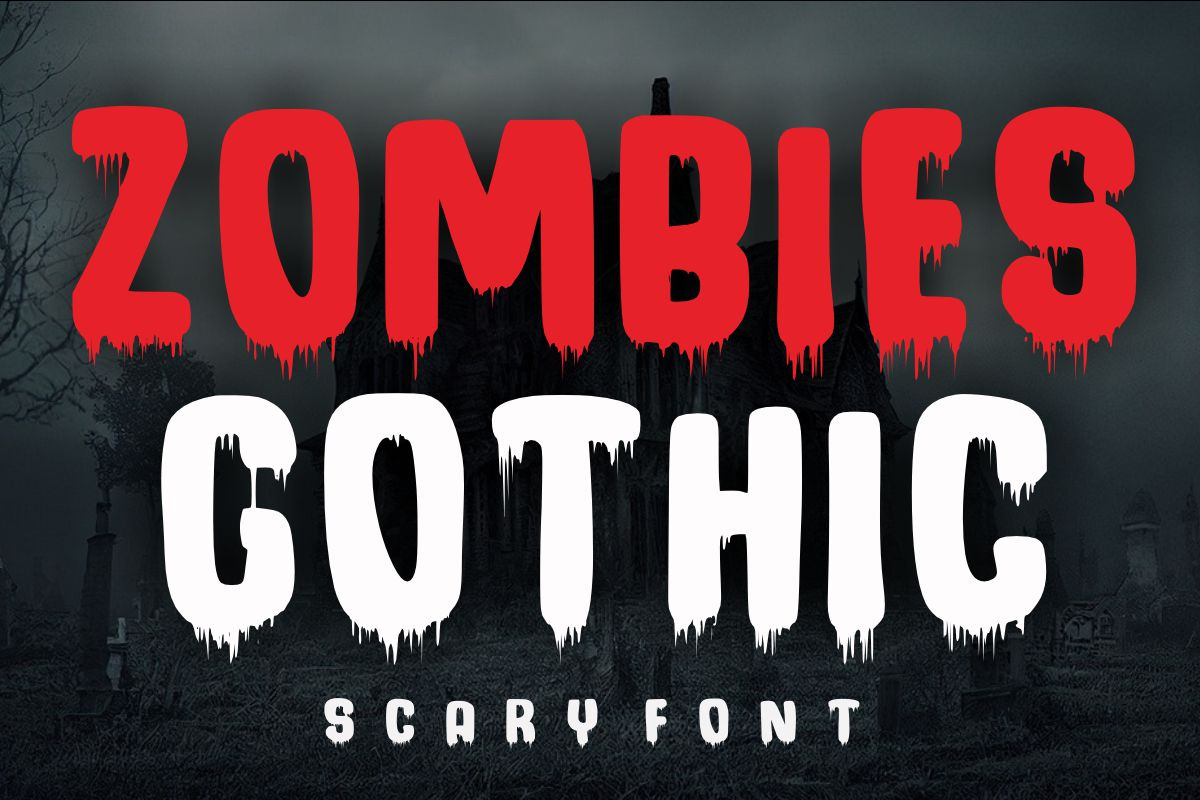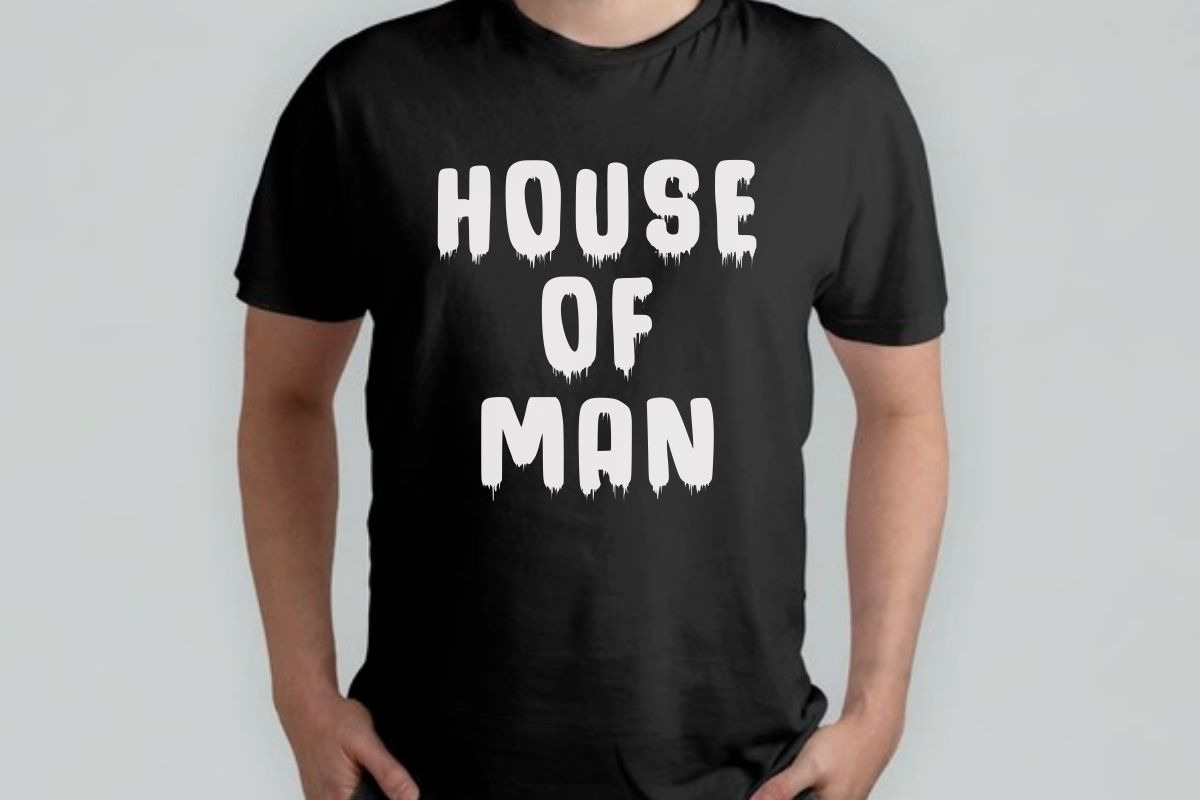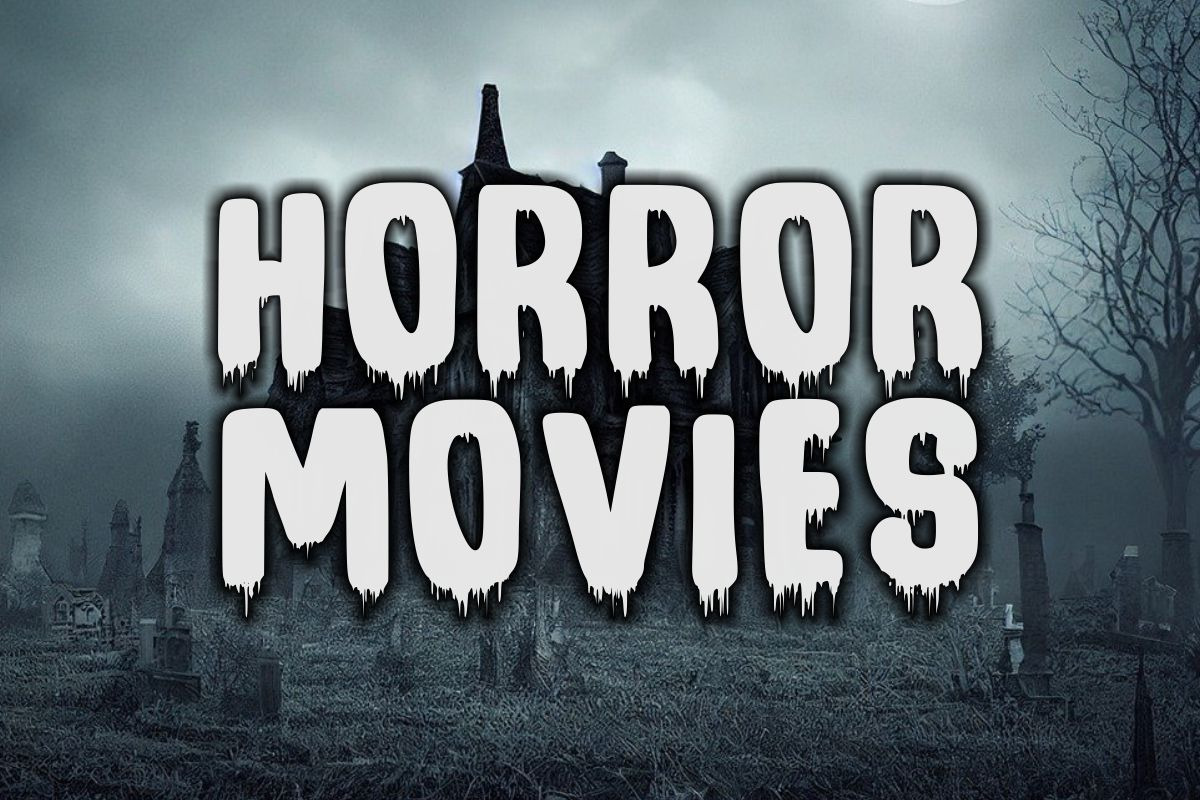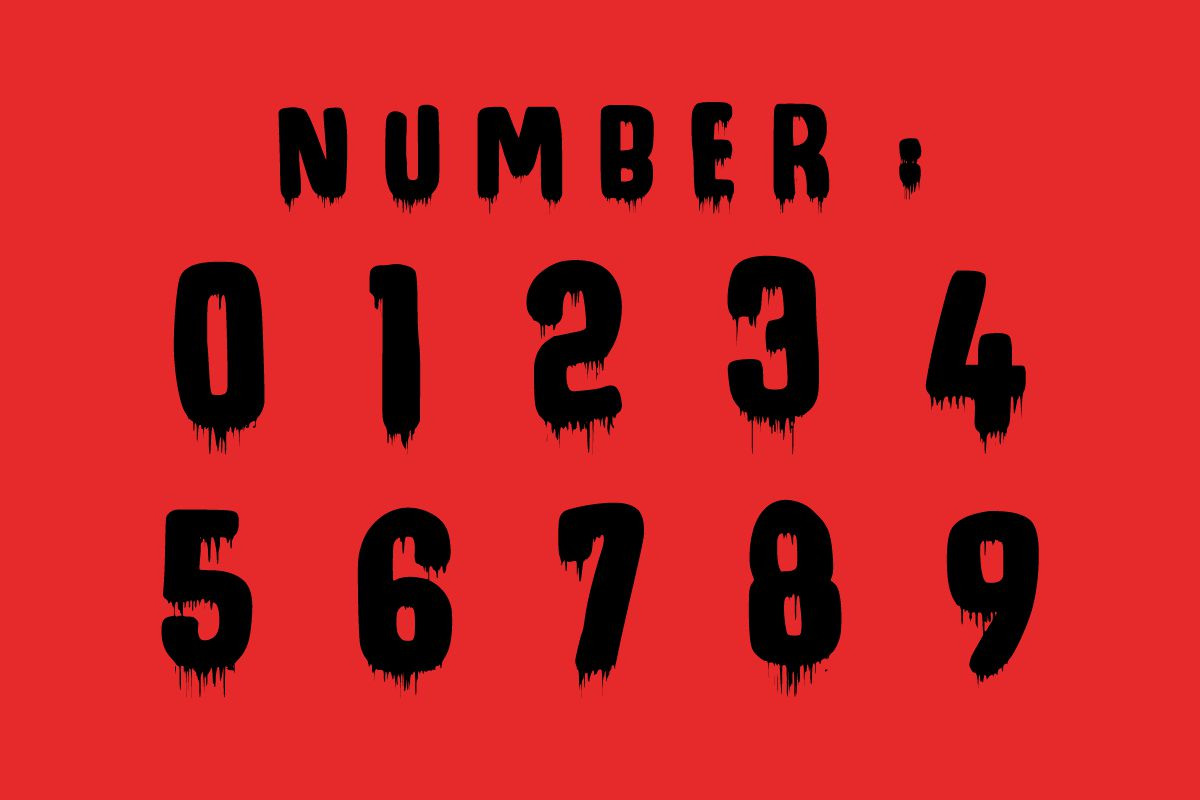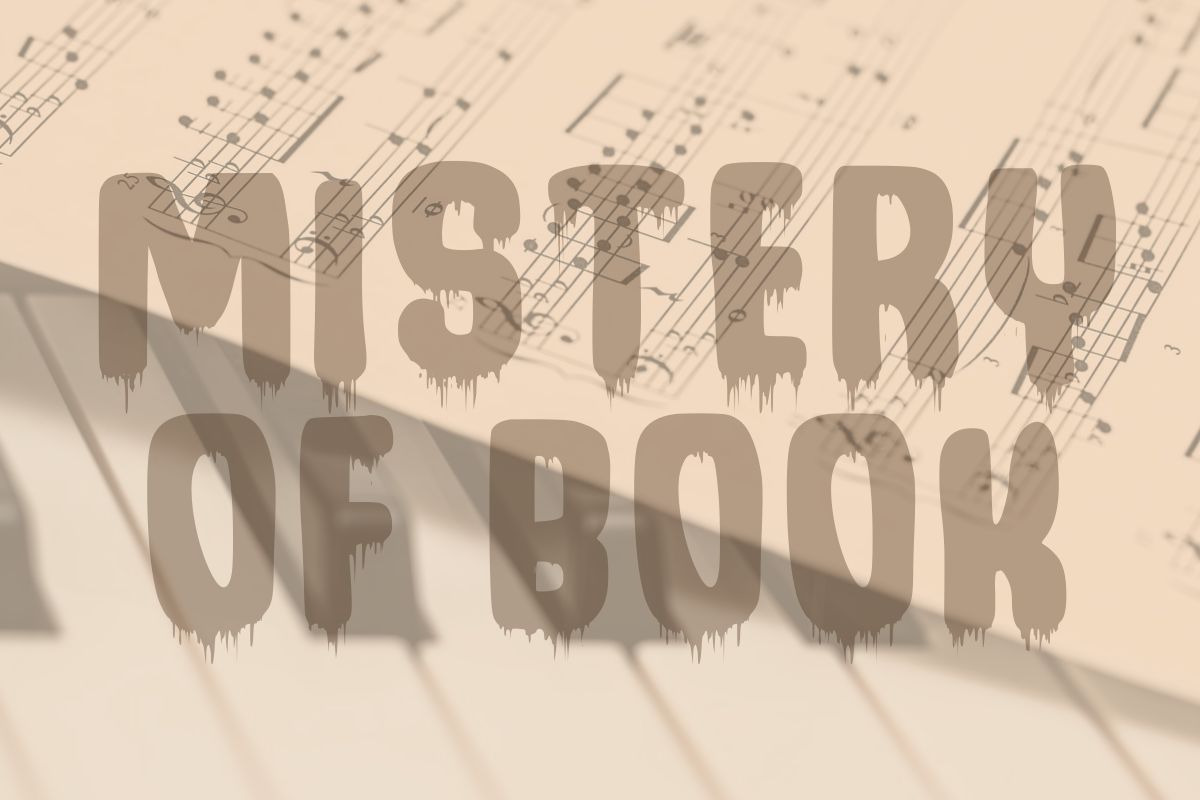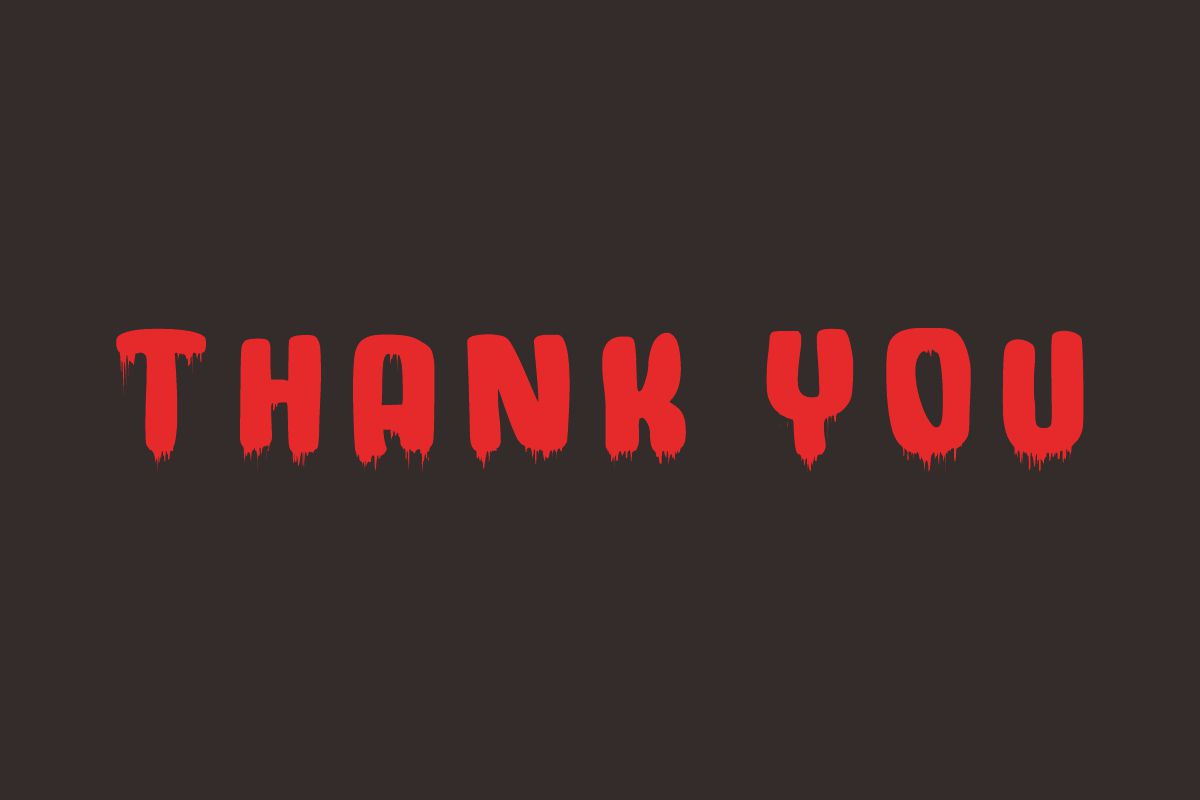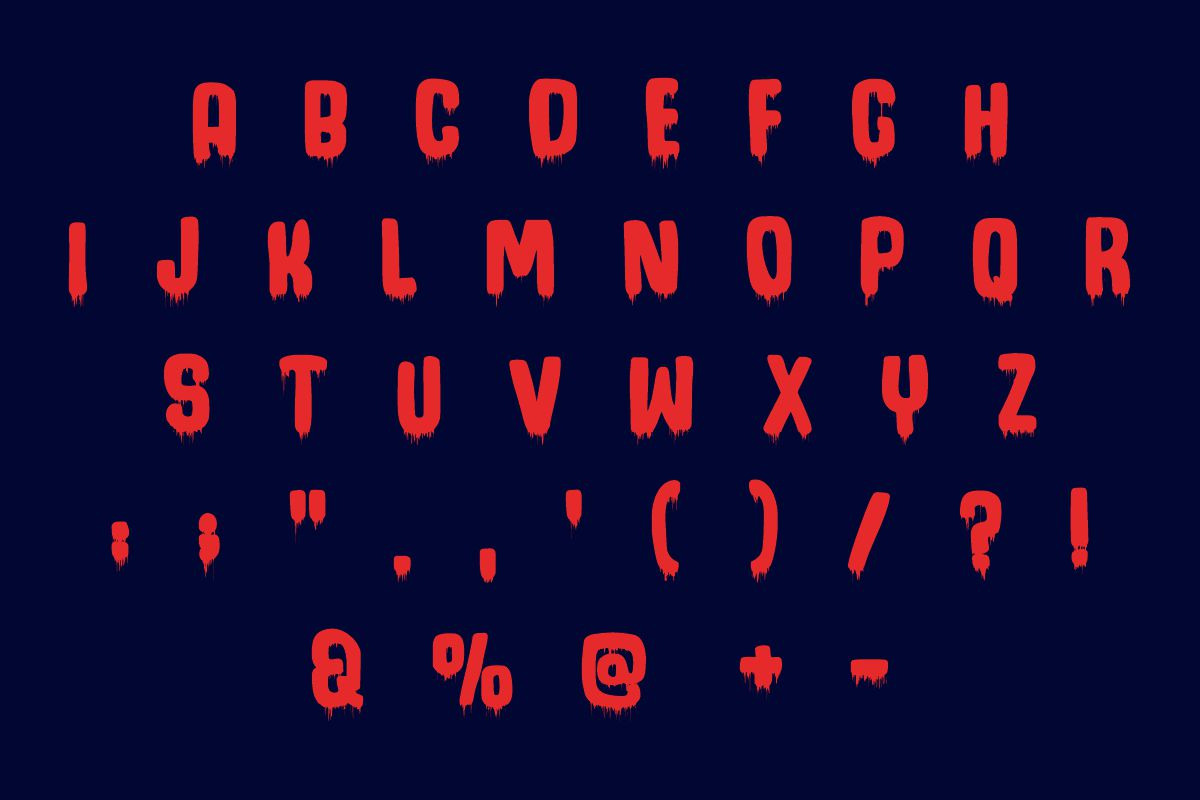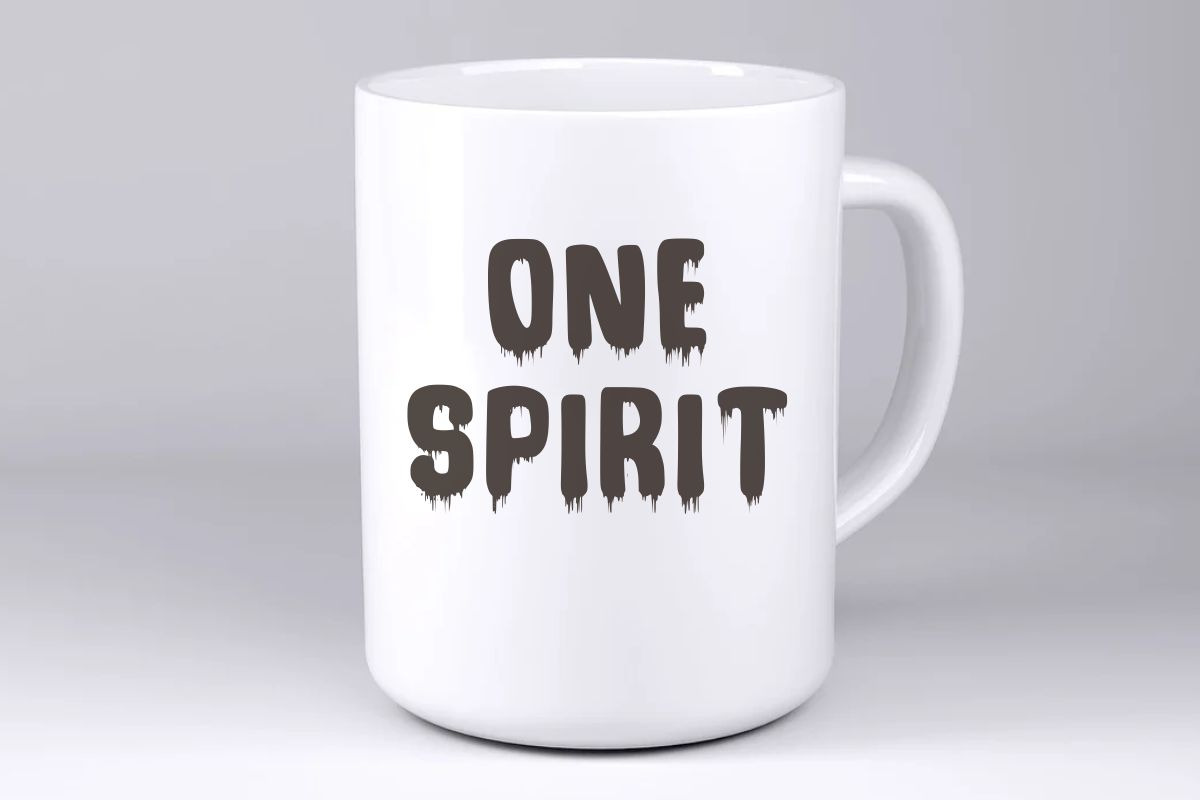
Zombies Gothic Scary Horror Font
Zombies Gothic is a cool, scary display font. You can use it for various projects such as blog posts, logos, branding, ads, invitations, greeting cards, planners, photo albums, decorations, or anything related to Halloween or horror.